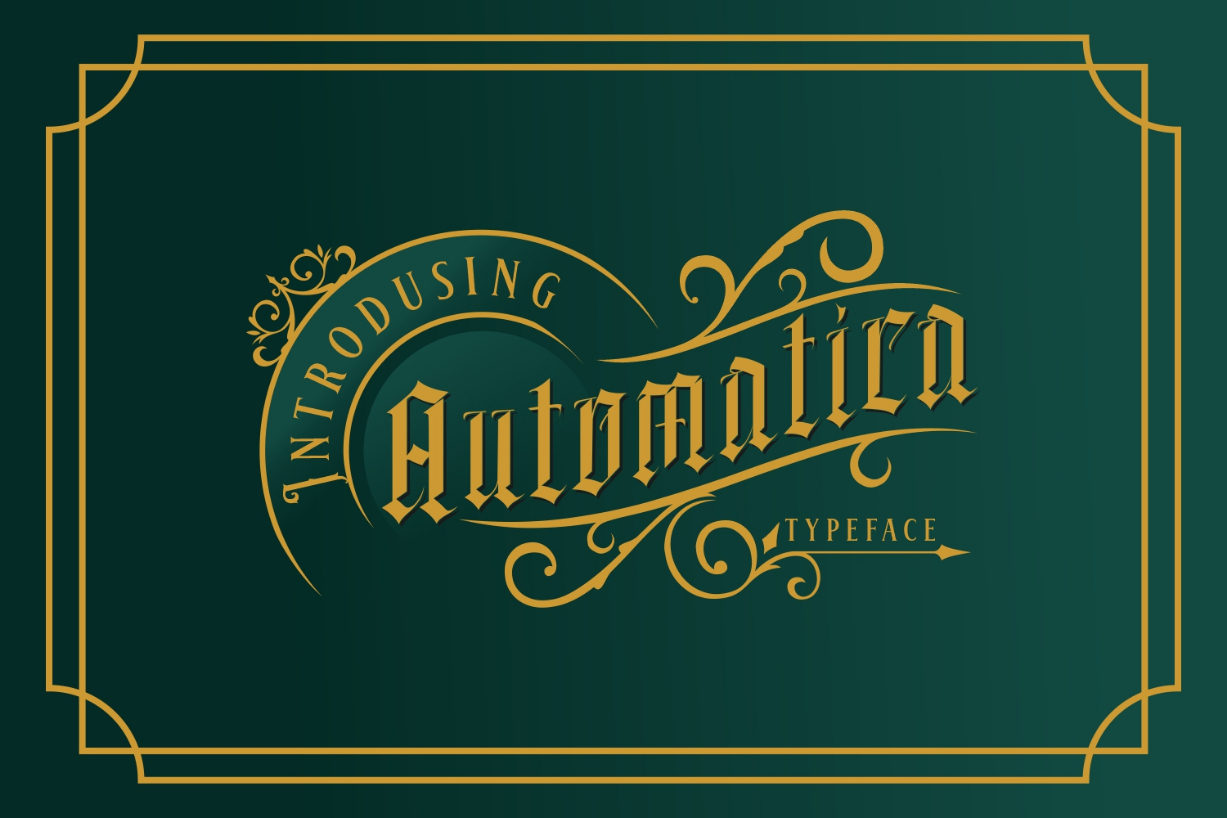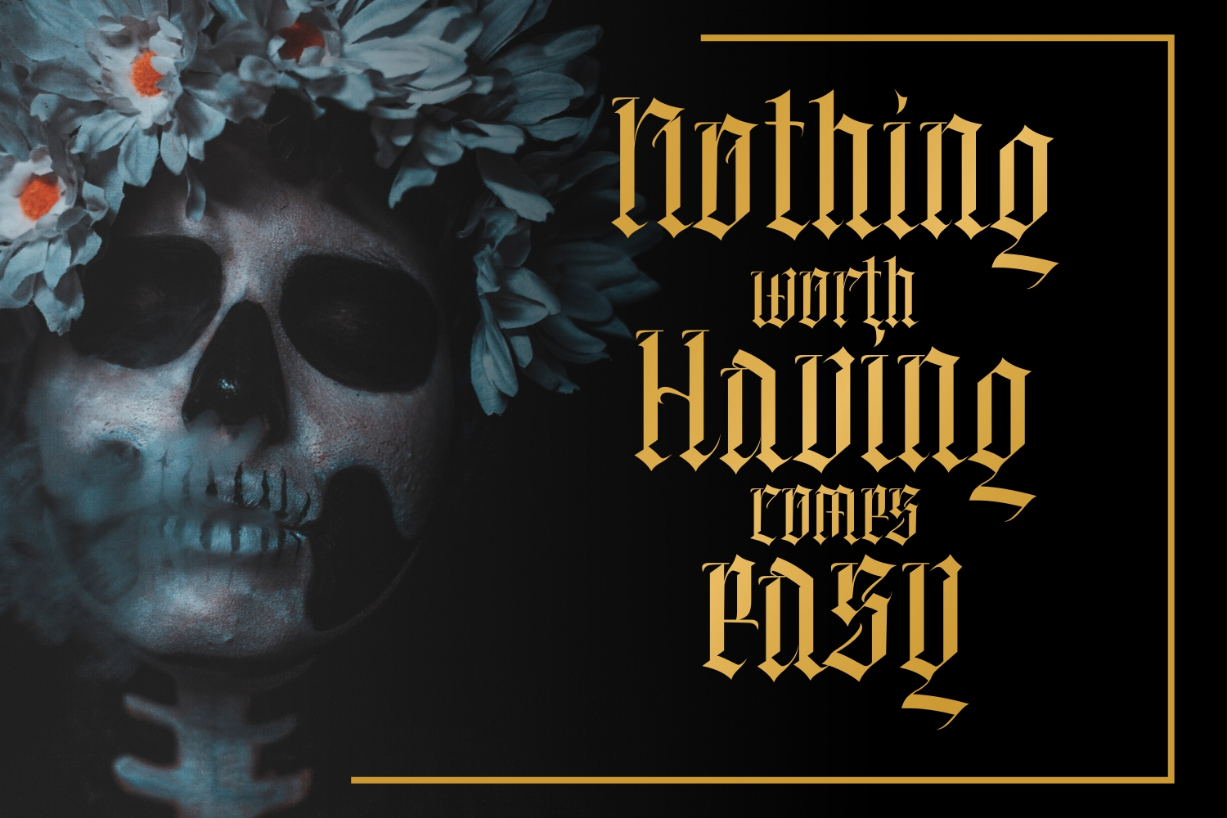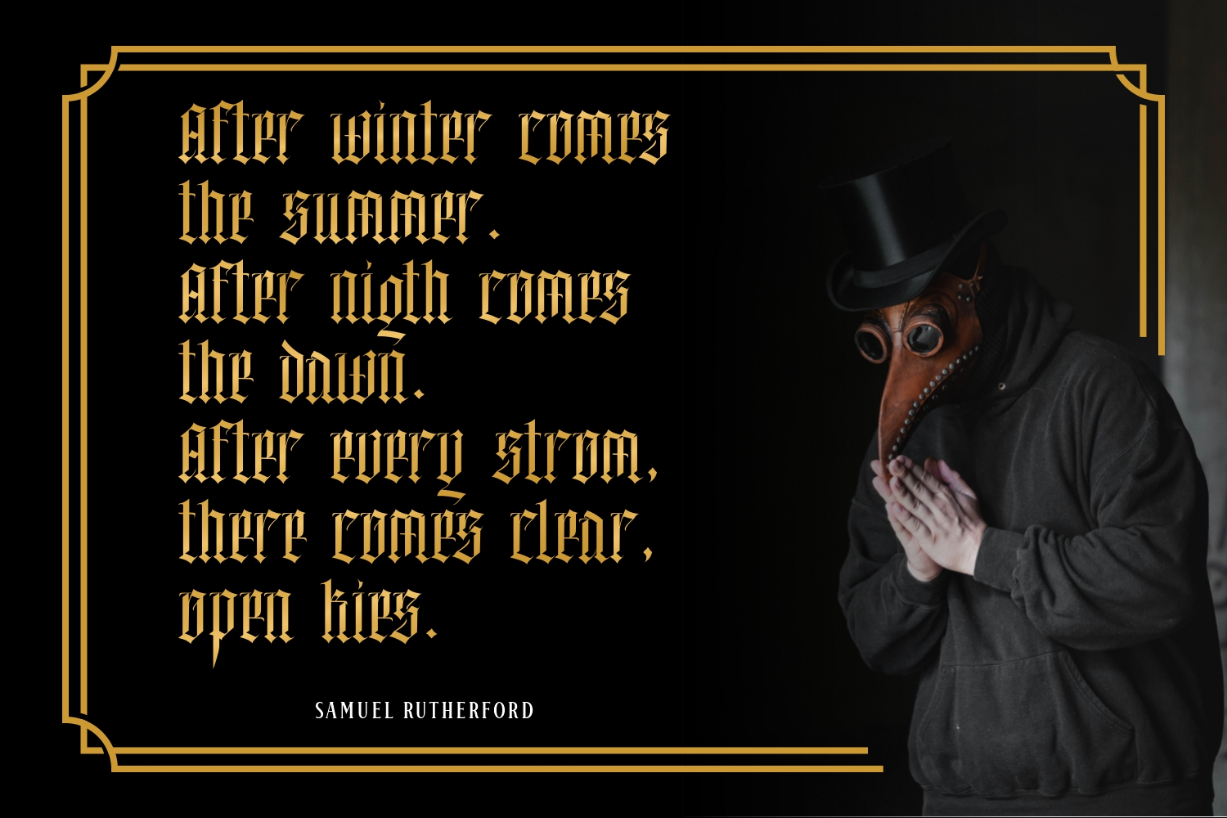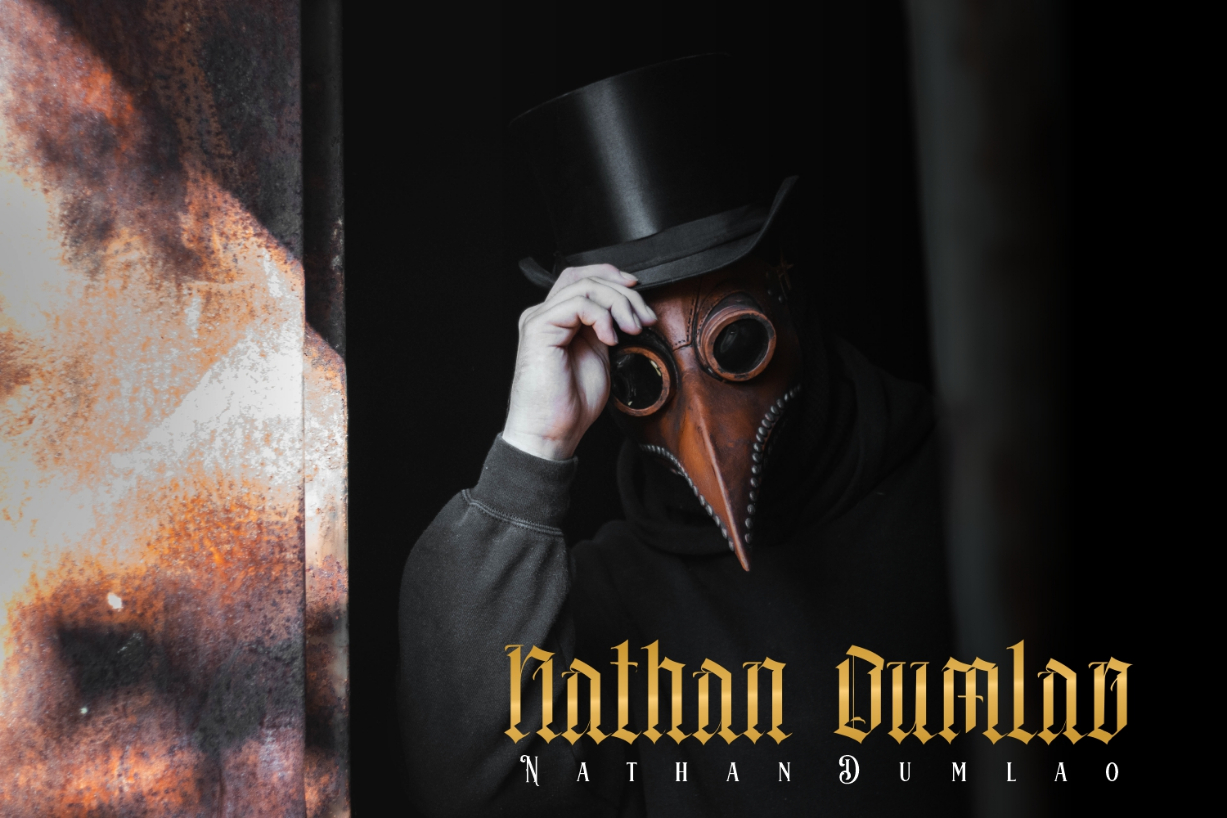
Automatica Font
About Automatica Font
Automatica is a authentic looking blackletter font. Created with attention to detail, this stunning font will give a rustic look to your designs.